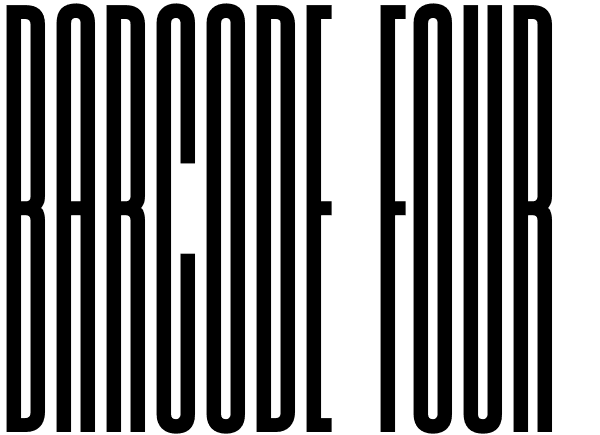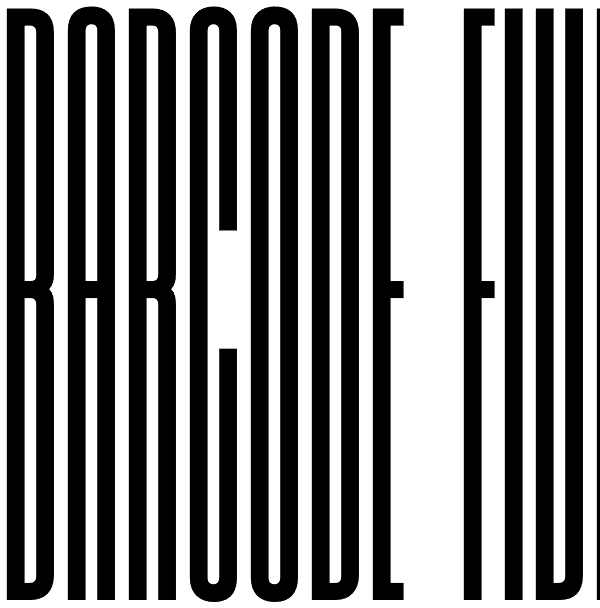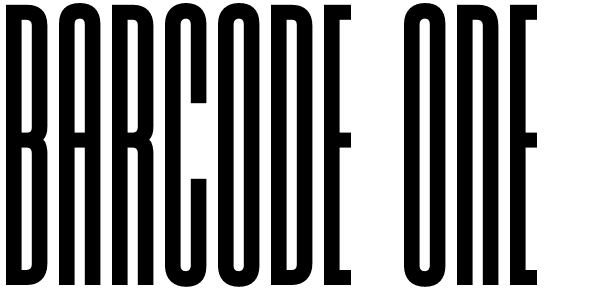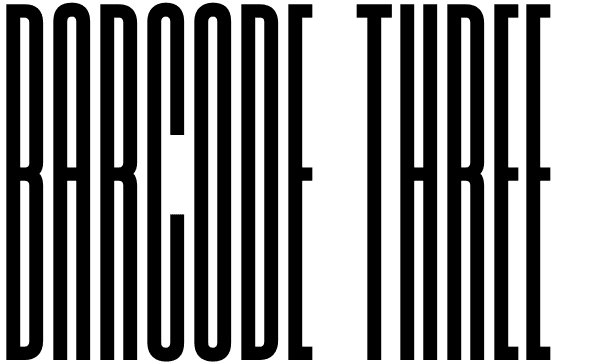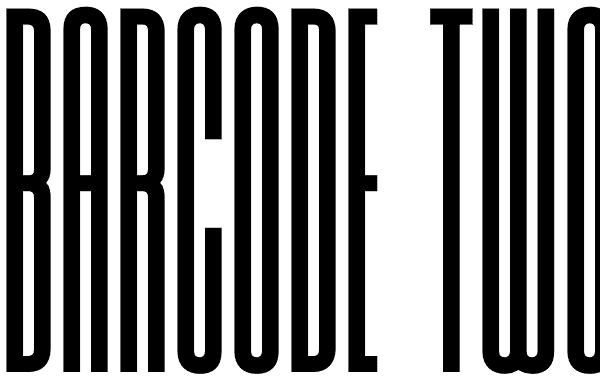
Barcode
The five-part Barcode series offers an ultra condensed design where successive styles are all the same weight, an experiment for the type designer and user in character interaction as the form of the typeface is varied by style and/or size. In each...